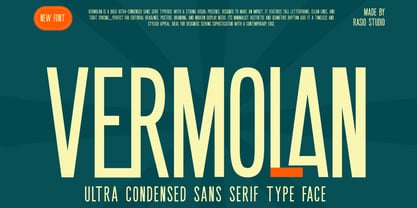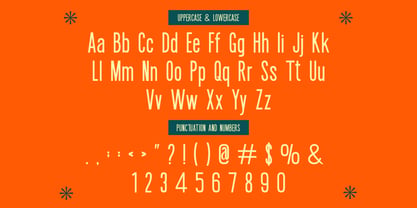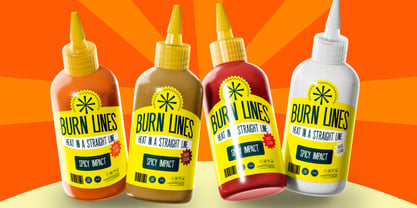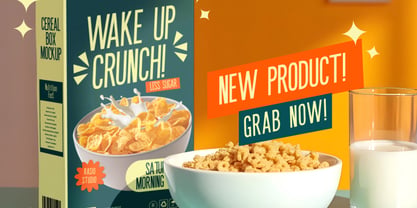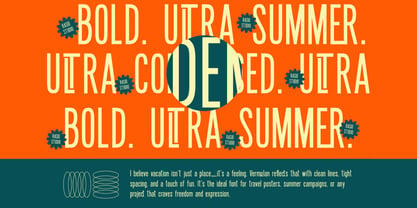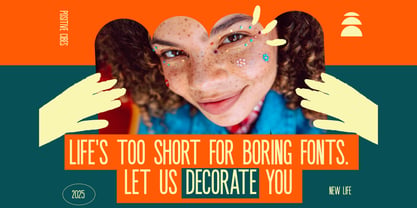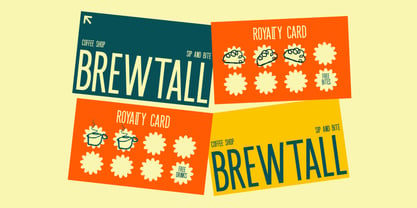
Vermolan
by Rasio Studio
The Vermolan Font Family was designed by Fajar Indra and published by Rasio Studio. Vermolan contains 1 styles. More about this family
Vermolan is a bold ultra-condensed sans serif typeface designed for maximum impact and modern elegance. Its tall, narrow letterforms and tight spacing create a sleek, space-saving aesthetic — perfect for headlines, posters, and branding that demand attention. The clean geometry and minimalist rhythm make it timeless yet distinctly contemporary. With uppercase, lowercase, numerals, and punctuation, Vermolan delivers clarity and style across print and digital layouts. Ideal for designers seeking a confident and versatile display font that blends modern editorial flair with a bold visual statement.
Designers: Fajar Indra
Current Foundry: Rasio Studio